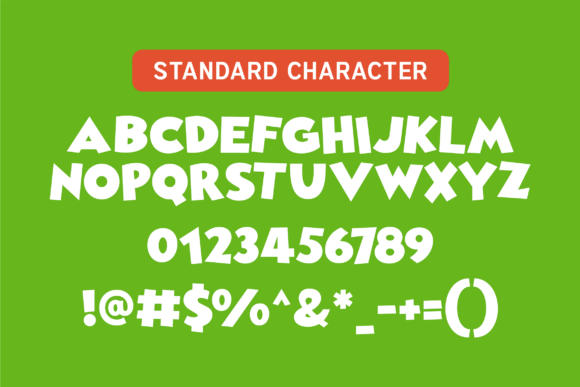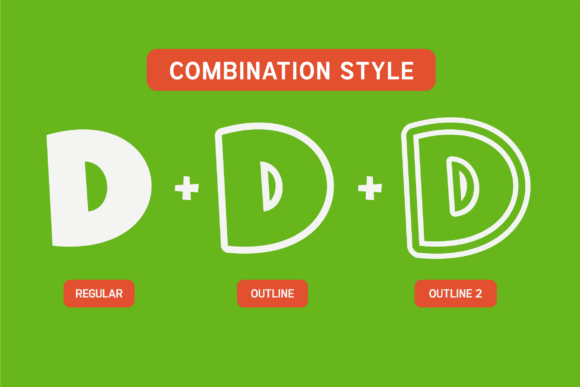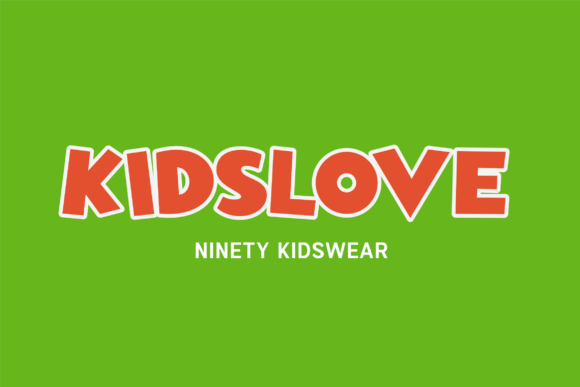
Introduction to Kidmon Font
Do you remember the thrill of creating something new and exciting as a child? The joy of holding a freshly colored picture, or the excitement of designing a DIY project with your favorite markers? For designers, that sense of creativity and wonder never fades, and finding the perfect font can be the key to unlocking that magic. That’s where the Kidmon Font comes in – a playful, fun, and full-of-character font designed specifically with kids in mind.
With its chunky, rounded shapes and slightly irregular structure, the Kidmon Font is the perfect addition to any design project. Whether you’re creating a children’s book, designing a toy packaging, or crafting a birthday invitation, this lively font will bring a cheerful and friendly feel to your work. And the best part? The Kidmon Font is available for free download, making it an invaluable design resource for creatives of all levels.
Key Features of Kidmon Font
- High-quality, unique design perfect for creative projects and artistic expressions.
- Perfect for use in a variety of creative projects, including graphics, logos, and digital artwork.
Honest Review: Kidmon Font
As a designer, I’m always on the lookout for high-quality design resources to elevate my creative projects. Recently, I had the chance to work with the Kidmon Font, and I’m excited to share my honest review with you.
- ✨ Unique and playful design style that’s perfect for kids’ or educational projects.
- ✨ High-quality font with clear and crisp lines, making it ideal for both digital and print designs.
- ✨ Transparent background option allows for seamless integration with other design elements.
- ⚠️ Limited character set, which may not be suitable for longer texts or complex designs.
- ⚠️ Not ideal for formal or professional projects, as the playful design may come across as unprofessional.
Overall, I was impressed with the Kidmon Font’s potential for creative projects, especially those targeting a younger audience. While it has some limitations, I think it’s a great design resource for designers looking for a unique and high-quality font. Just be mindful of its limitations and use it accordingly.
Tips for Getting the Most Out of Kidmon Font
Experiment with different font sizes and colors to create visually appealing designs. Consider using the Kidmon Font with a transparent background for a unique and creative look.
Common Use Cases for Kidmon Font
The Kidmon Font is ideal for creative projects, such as social media graphics, presentations, and infographics. It’s also a great resource for designers who want a high-quality, free download font with a transparent background.